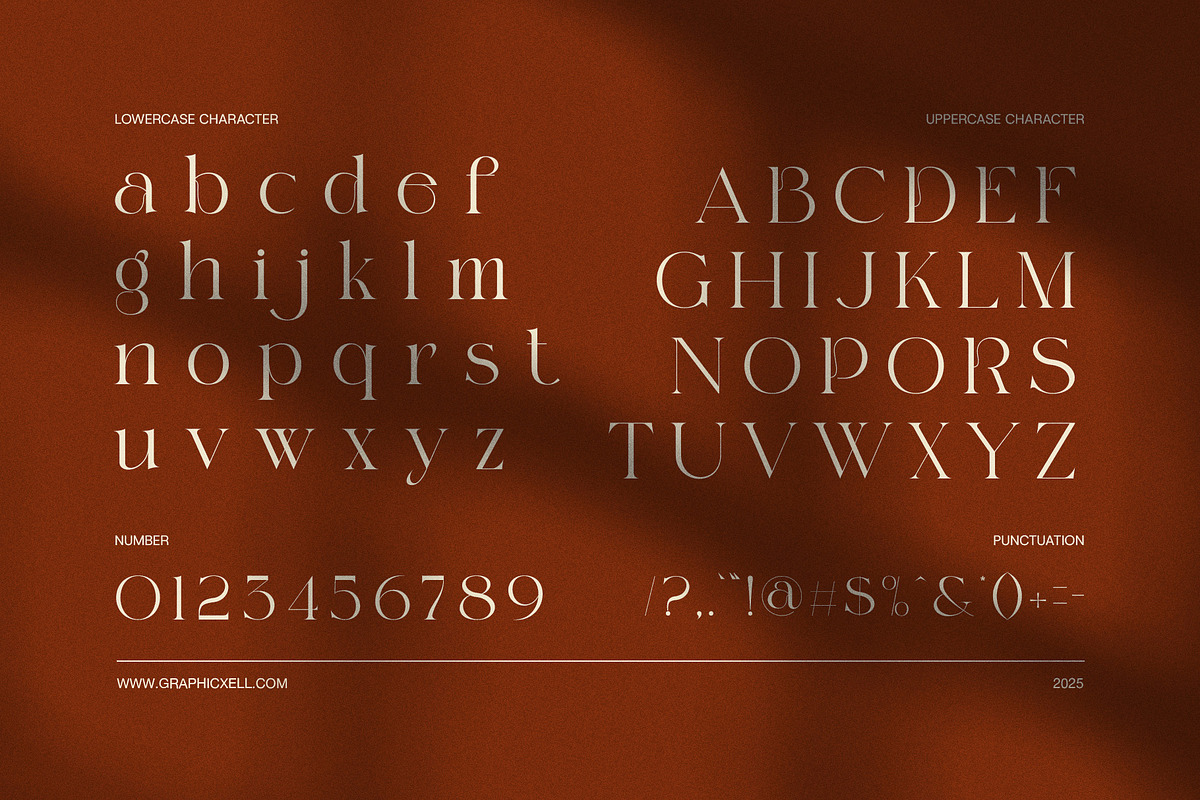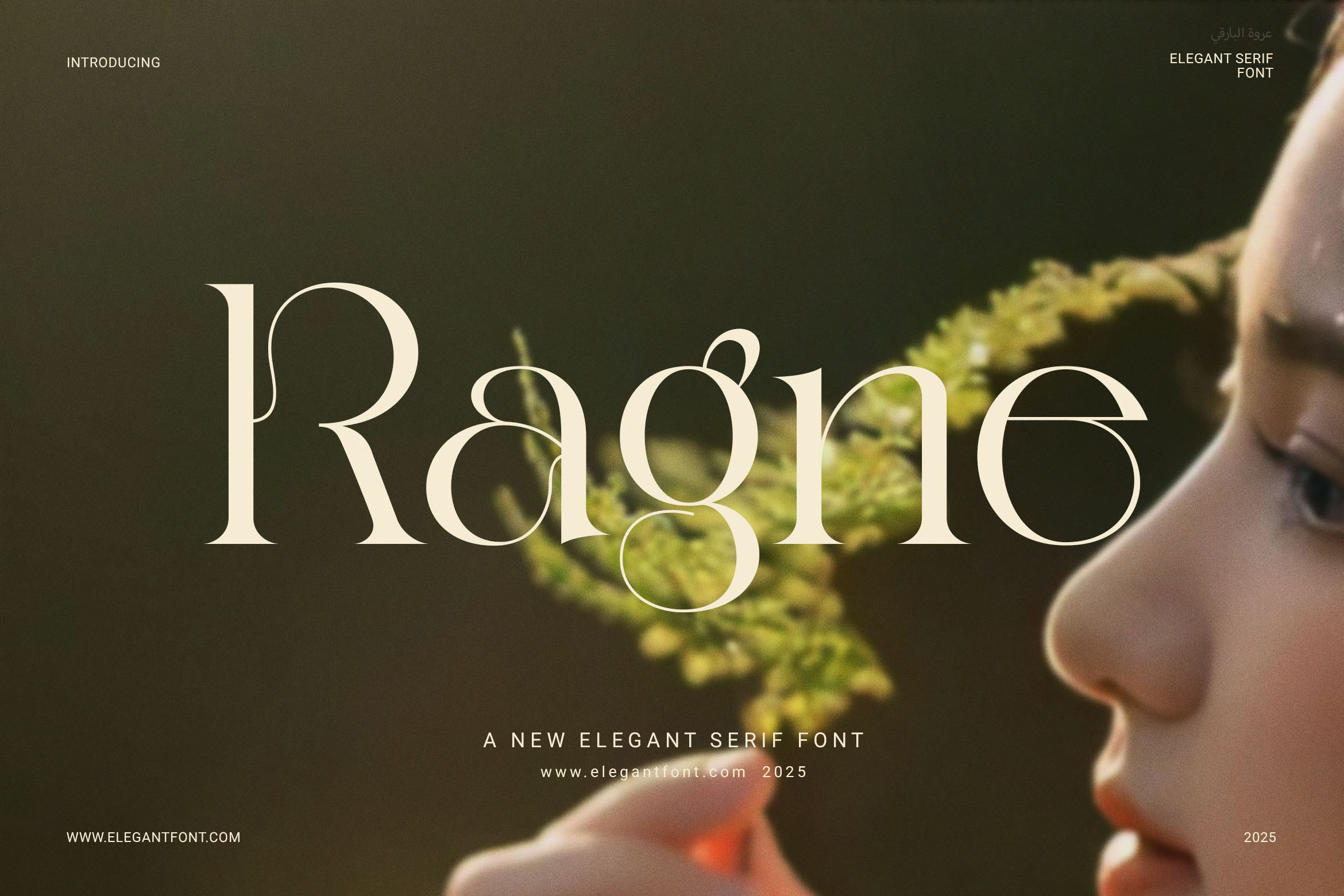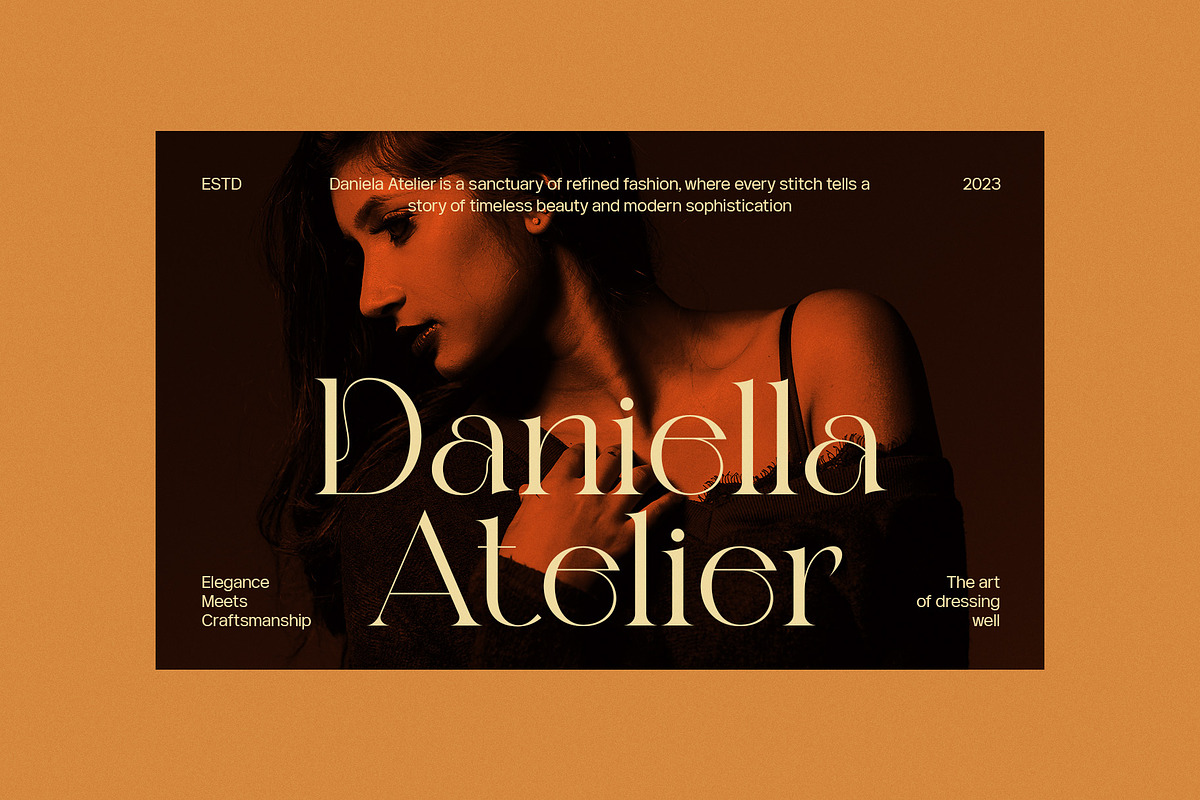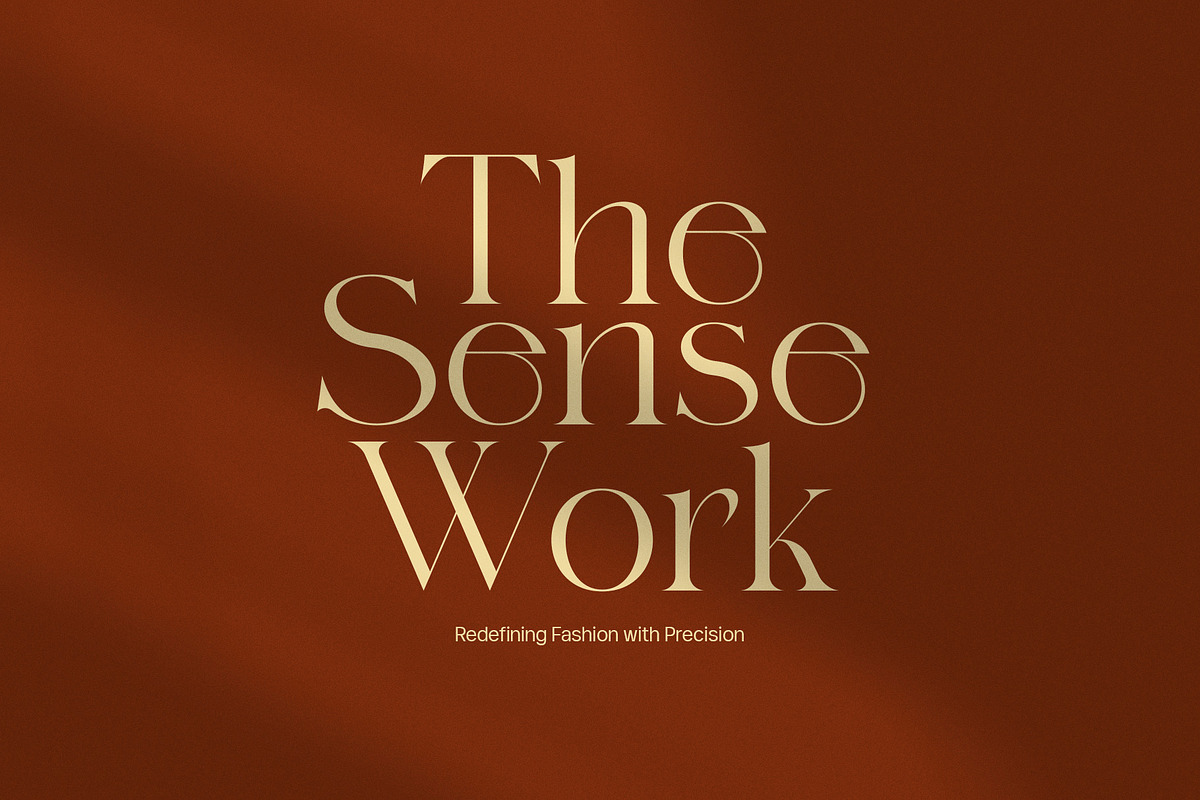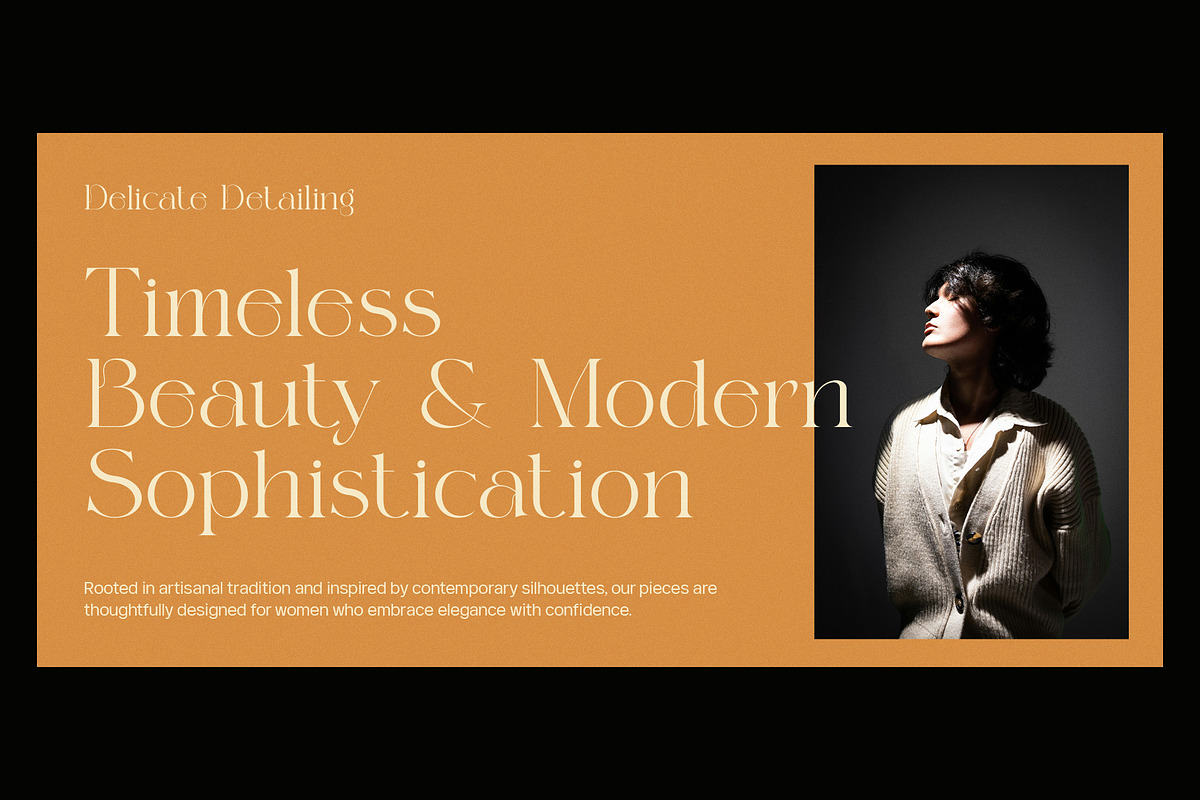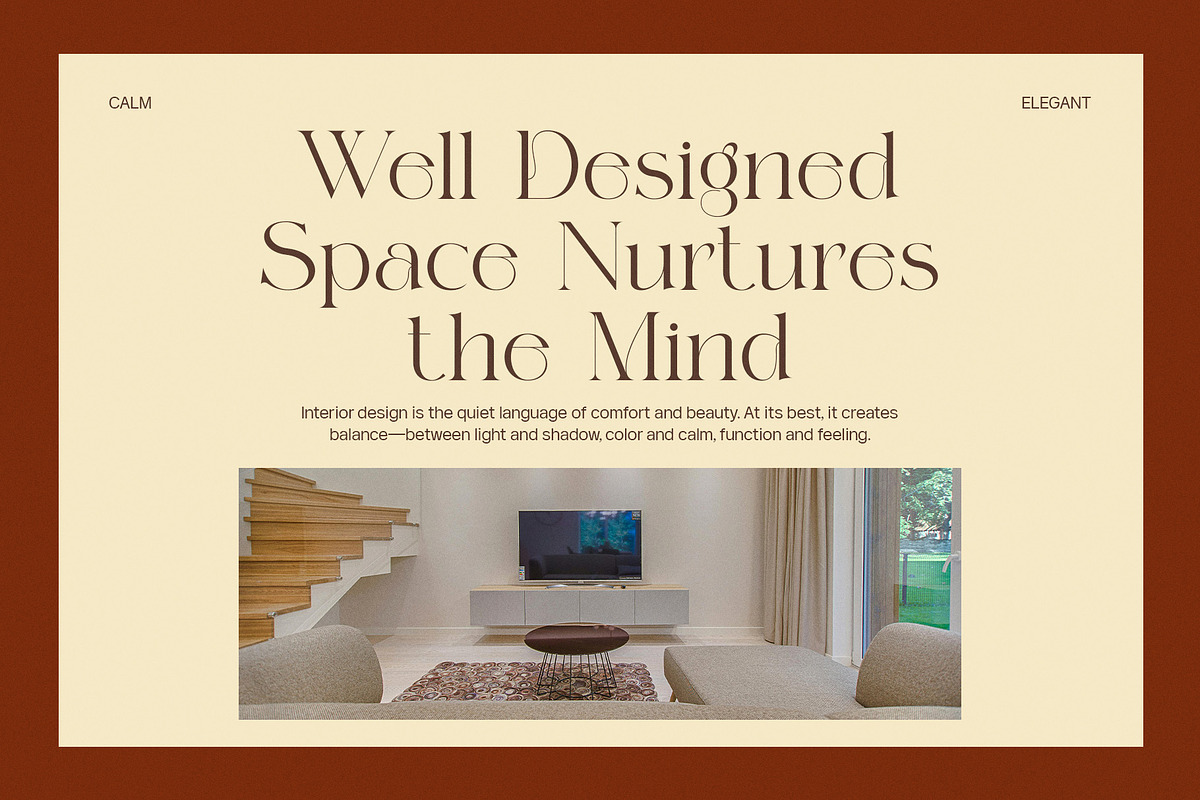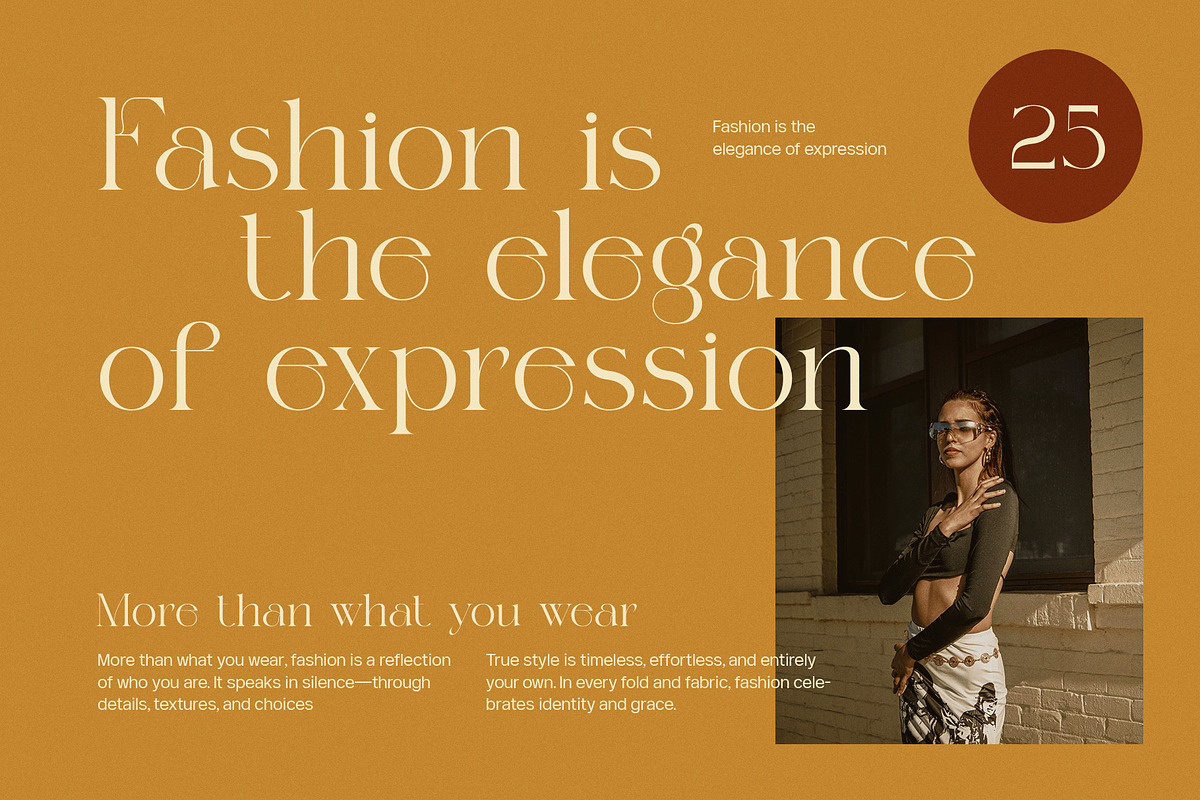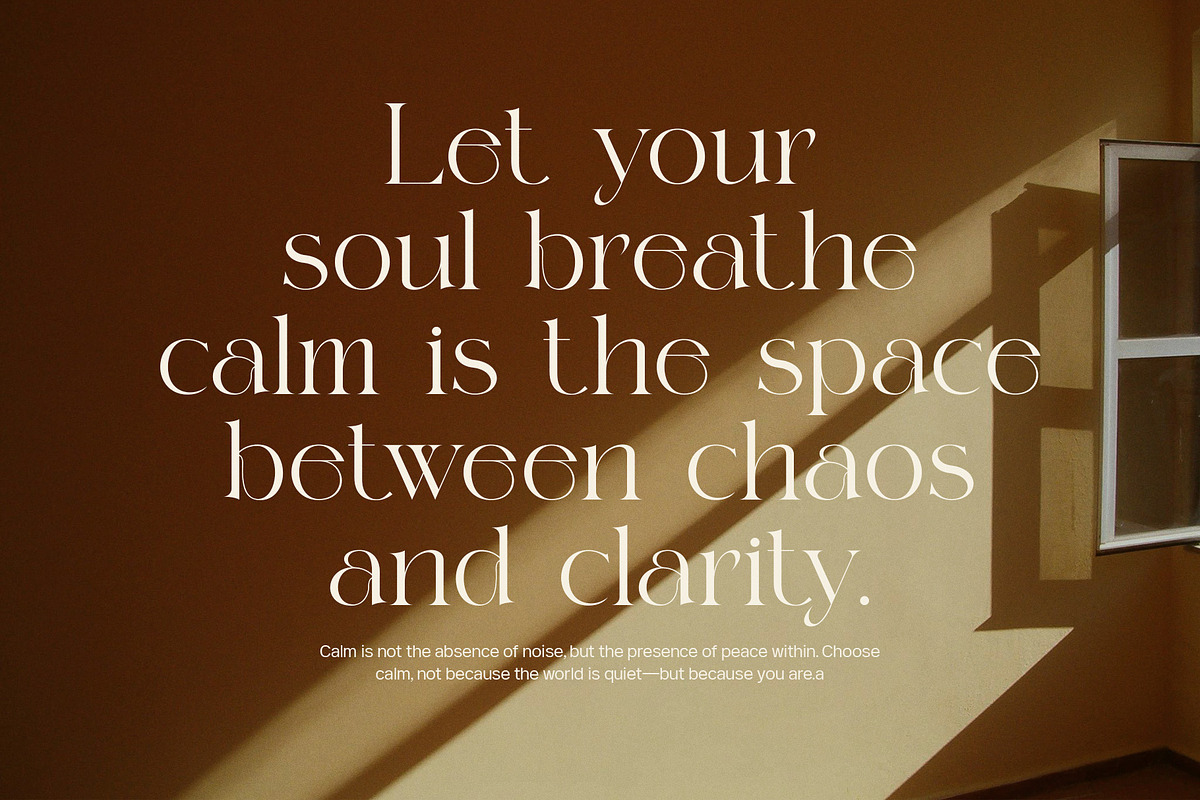
Ragne Elegant Serif Font
Ragne Serif Font – Timeless Elegance in Every Letter
Ragne Serif Font is a luxurious and modern serif typeface crafted to elevate any design. While it embraces classic form, it also delivers a bold and fresh look. With strong contrast and refined details, this font ensures your work feels premium and professional.
Perfect for Premium Design Projects
Whether you’re designing for fashion, weddings, or editorial layouts, Ragne Serif is the perfect choice. In fact, its clean strokes and graceful terminals make it suitable for both digital and print use. Because of its elegant style, it blends seamlessly into any luxury branding or upscale product line.
Why Choose Ragne Serif Font?
There are several reasons designers turn to Ragne Serif for high-end projects:
Elegant contrast strokes that bring depth and dimension
Sharp, clean serifs that add structure and style
Full character set with uppercase, lowercase, numbers, and punctuation
Highly legible for both large and small displays
Perfectly balanced to pair with sans-serifs, scripts, or minimalist fonts
Moreover, it supports multiple languages and includes alternates for creative flexibility.
Ideal Use Cases for Designers
Not only does Ragne Serif look beautiful, but it also functions well across a range of uses. For example:
Branding for luxury goods or fashion labels
Editorial layouts for magazines and lookbooks
Wedding invitations and formal event stationery
Packaging for cosmetics, perfumes, or boutique items
Social media posts that require a touch of class
Consequently, it's one of the most versatile serif fonts available today.
Designed for Style and Usability
Although Ragne Serif looks stylish, it's more than just attractive. It’s also practical. Its design balances tradition with modernism, giving your work a timeless appearance. Furthermore, it’s easy to read at any size, so your message always comes through clearly.
Make Your Design Stand Out
If you're seeking a font that speaks of elegance and authority, Ragne Serif Font is the answer. It’s graceful yet powerful, classic yet modern. With this typeface, your work will always make a lasting impression.